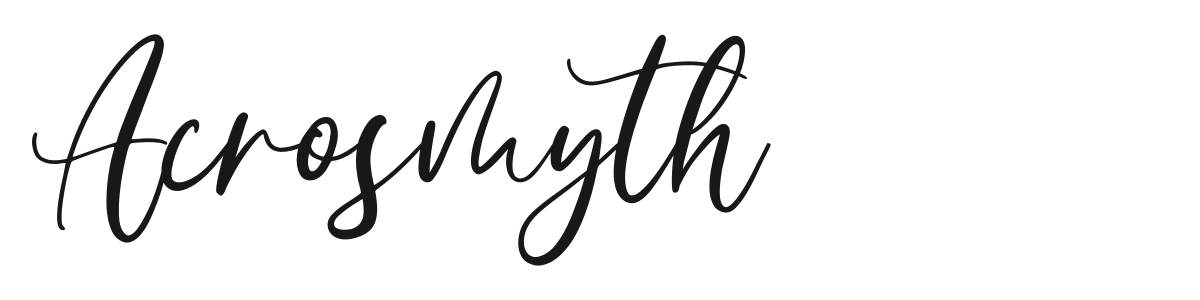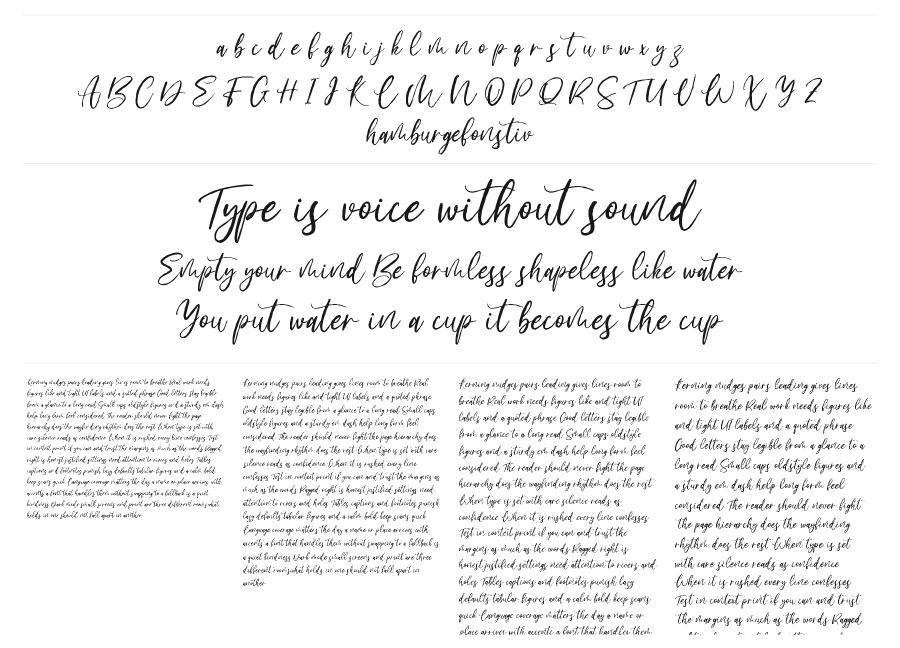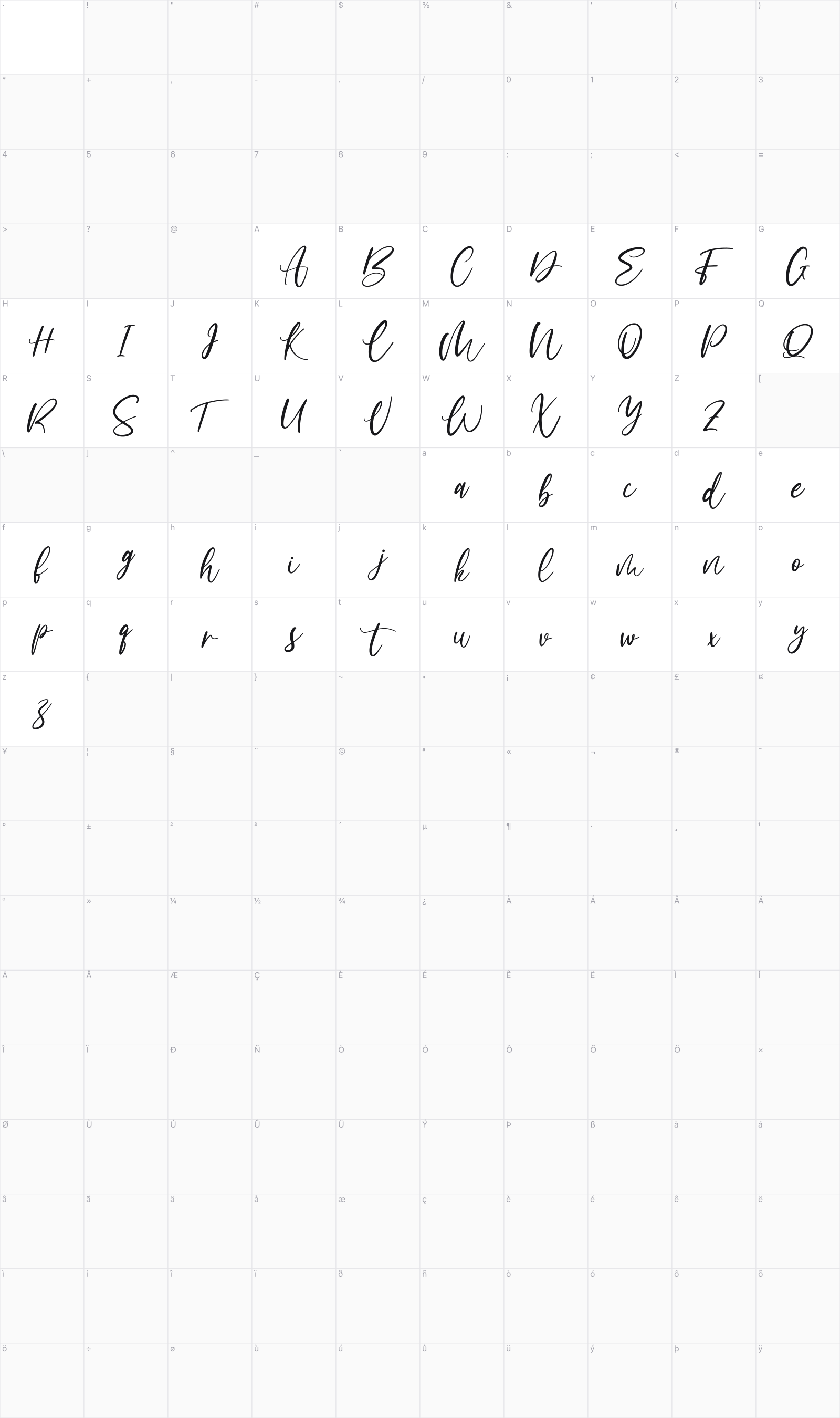
Acrosmyth
Acrosmyth is a flowing casual script with the look of confident brush-pen calligraphy, balancing thick downstrokes against delicate hairline upstrokes. The generous ascenders and descenders loop and interweave in a way that feels spontaneous without being sloppy. It sits comfortably in wedding invitations, boutique branding, and lifestyle packaging.